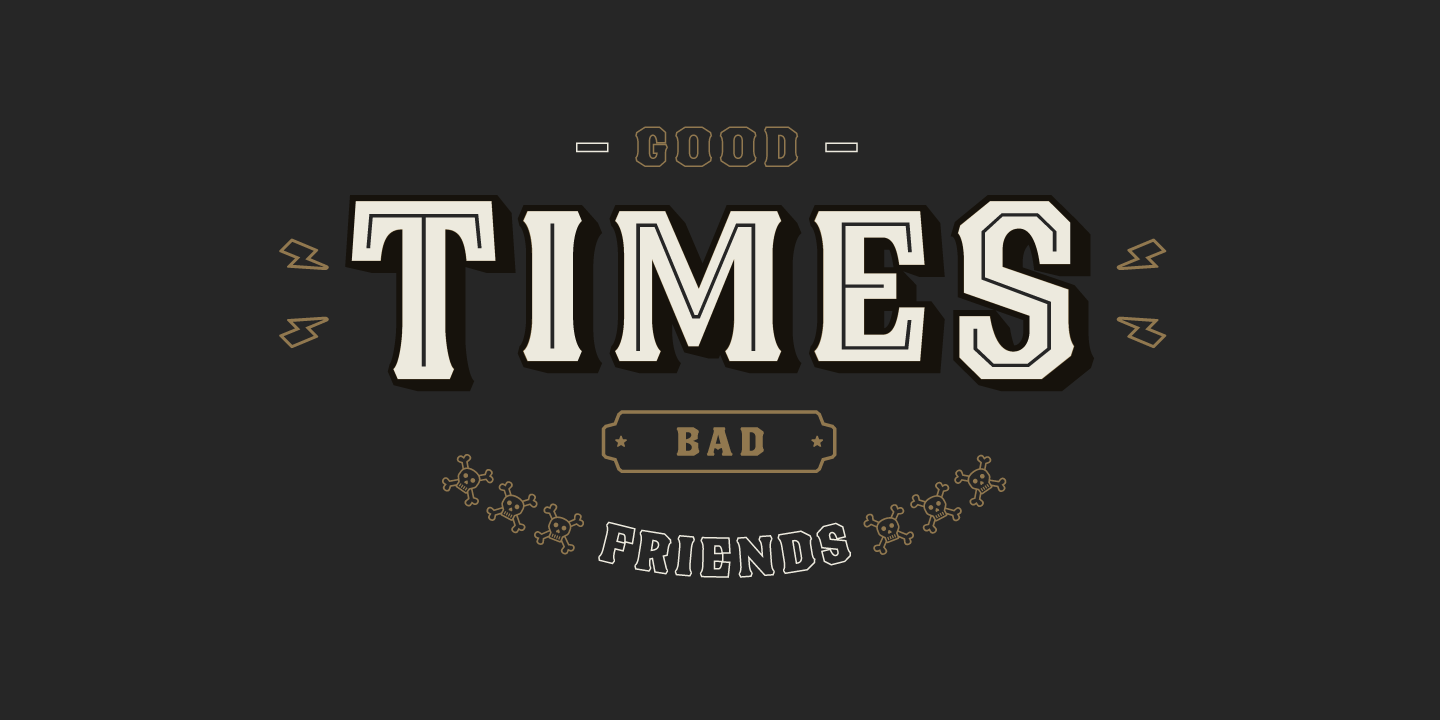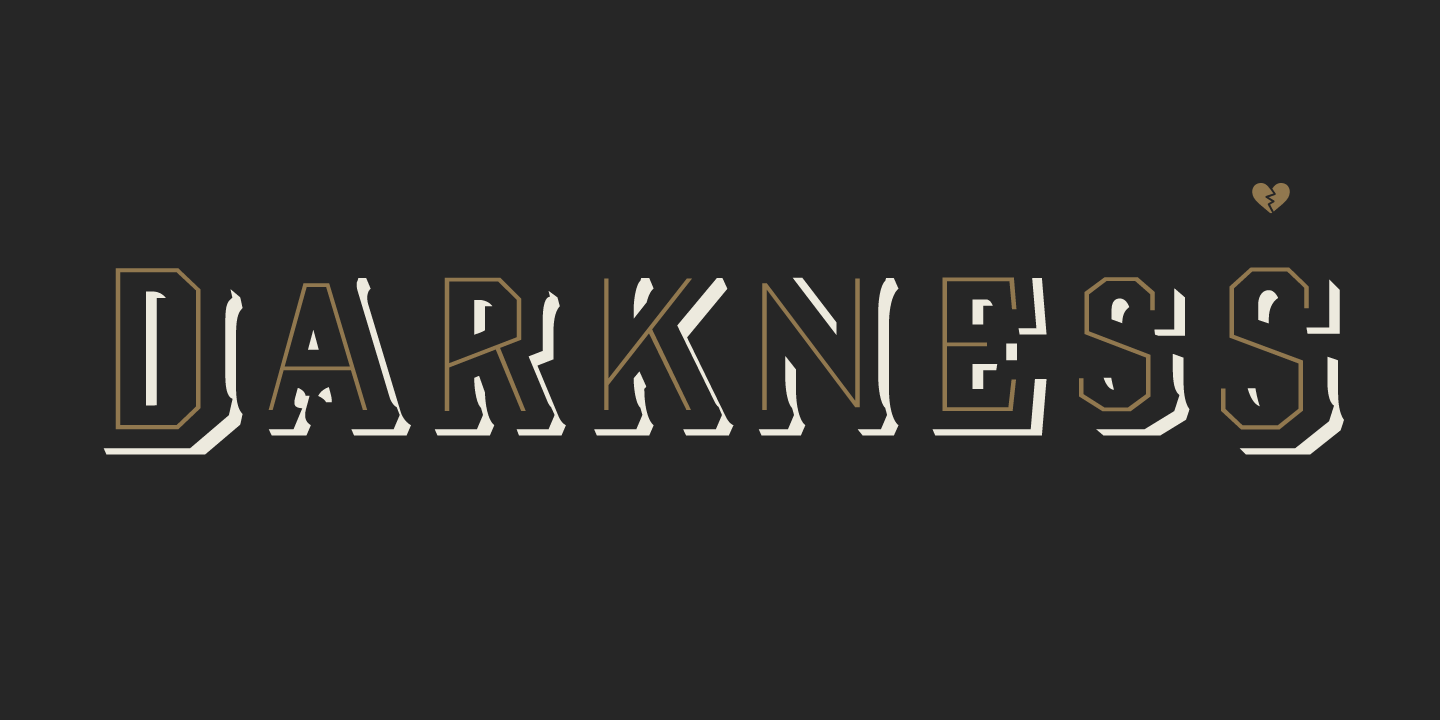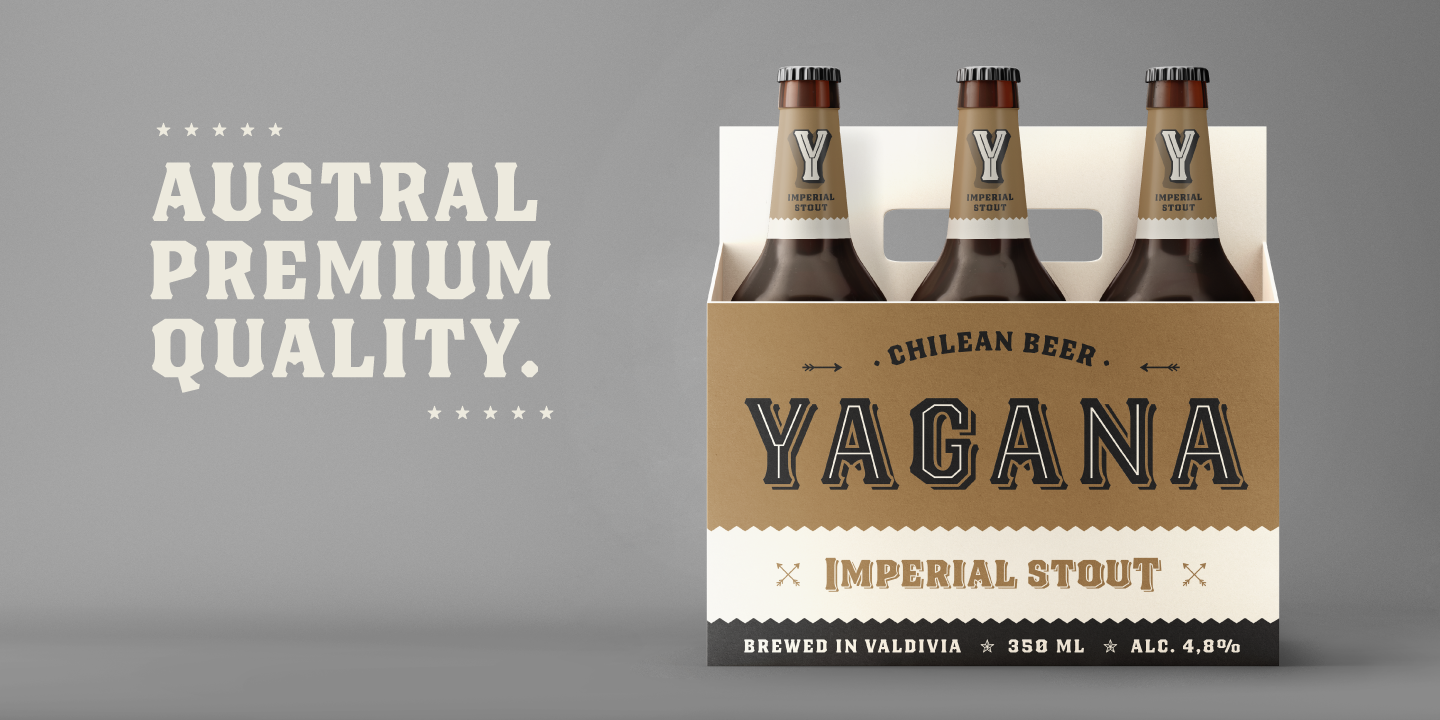
Blackberry is a display typographical family inspired on the design of vintage packaging, old fashion ads and show business marketing campaigns. This font brings back Woodtype characteristics such as angular serifs, and light and diagonal curves, which make it a fresh and current proposal for contemporary design needs.
Blackberry has a dynamic system of layers that include 3D extrusions, shadows, outline and inline graphics, as well as a series of dingbats and flags. The system is supported for over 200 Latin-based languages.
In total, the 10 Blackberry fonts provide a wide array of combinations and possibilities for high impact graphics, such as labels, packaging, posters, branding, record and movie covers, among others.